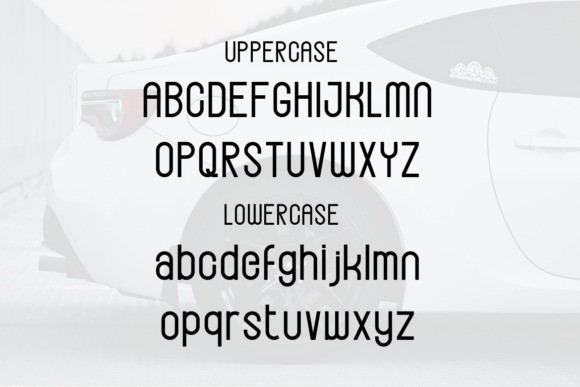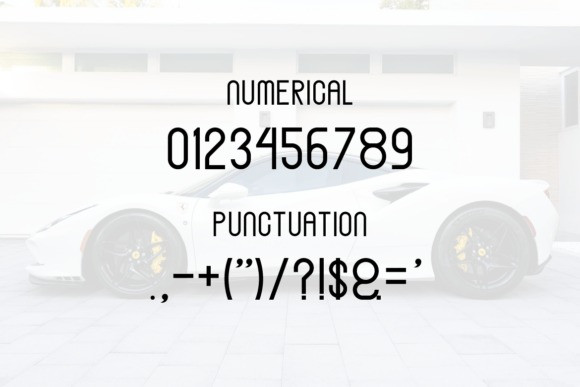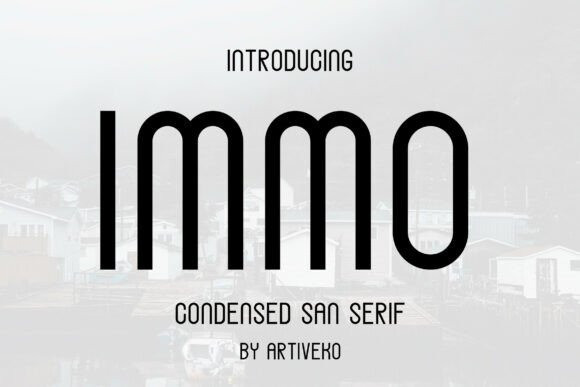
Immo Font
Immo Font is a modern and artistic sans serif font designed to break conventions while maintaining clarity and function. With unexpected shapes, dynamic proportions, and subtle quirks, Immo brings a bold creative edge to logos, branding, posters, packaging, and editorial layouts that crave originality.